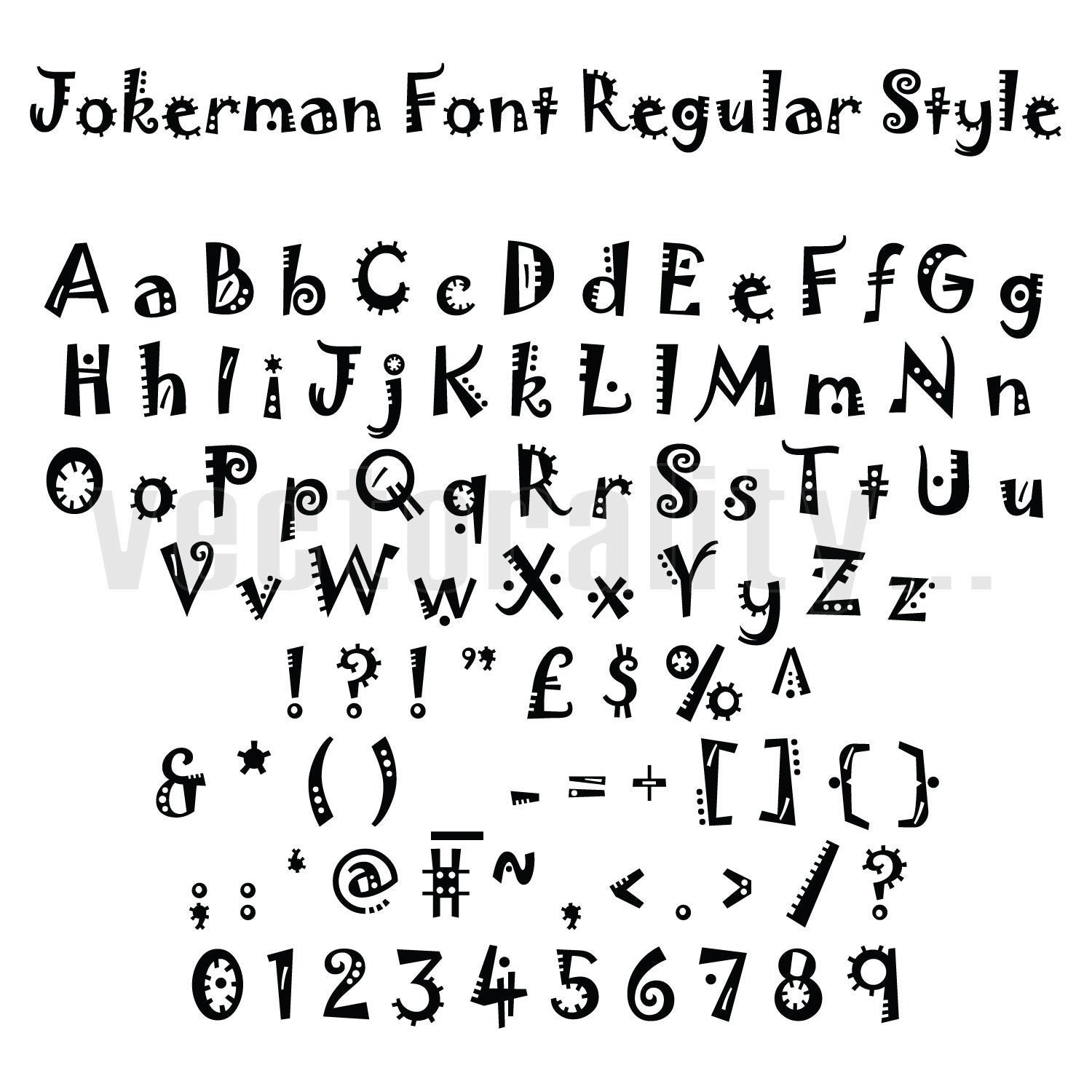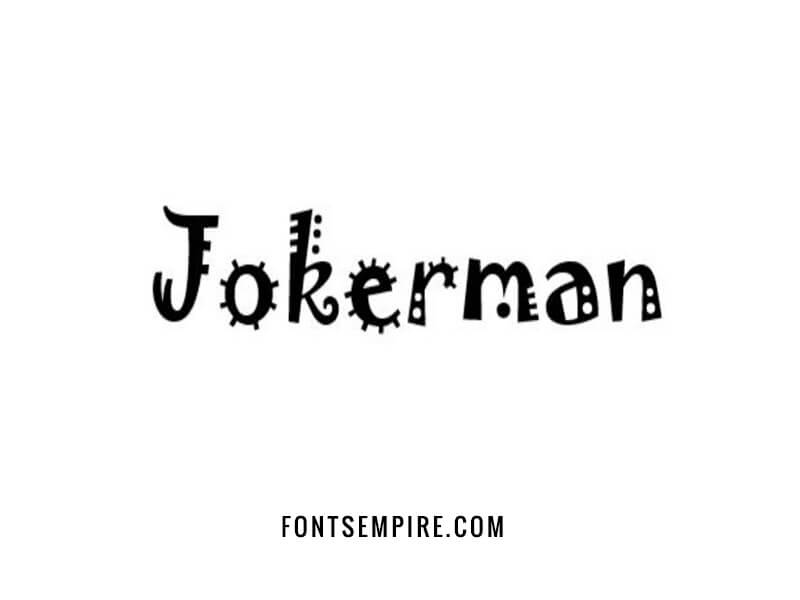
Joker Man Font
Joker Man Font - Web jokerman is the work of british designer andrew smith. It is a wild and energetic font that is effective when set in all caps, or as.
It Is A Wild And Energetic Font That Is Effective When Set In All Caps, Or As.
Web jokerman is the work of british designer andrew smith.